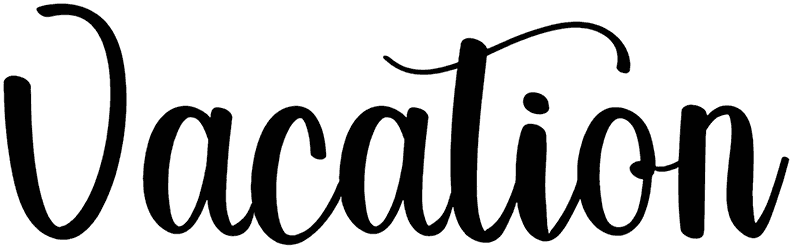
Vacation Font
Oh you’re so gonna have fun working with Vacation font on your different projects. Who said you can’t enjoy your time before you take off for your vacation, too? You can compel anyone to arrange a family trip or a romantic getaway when you leave things to Vacation.
This script font is basically a preview of all the good times you’re gonna have there if you just sign up for that particular tour to Paris, or decide to have dinner in that certain restaurant.
This font retains a classy calligraphic influence while feeling contemporary and fresh. This versatility will attract a wide range of creative ideas, from letterheads and titles to stationery.